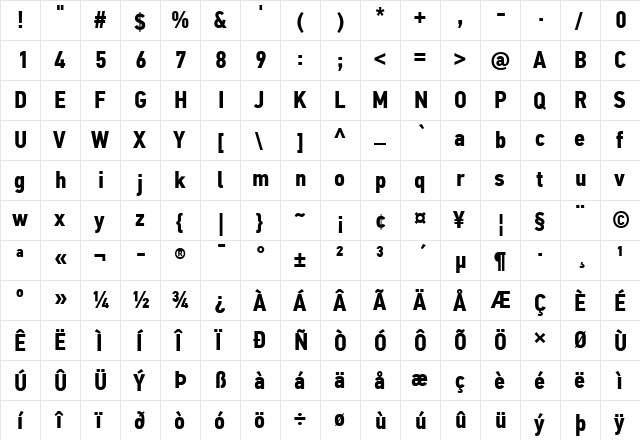
PF Din Text Cond Pro Bold
| Foundry | Parachute蠗orldwide |
| Designer | Panos Vassiliou |
Design Context for PF Din Text Cond Pro Typeface
PF Din Text Cond Pro is a composed and adaptable typeface that performs quietly and consistently across a wide range of design contexts. Its bold stroke weight gives it real presence on the page. The condensed width makes it efficient for tight spaces without sacrificing legibility.